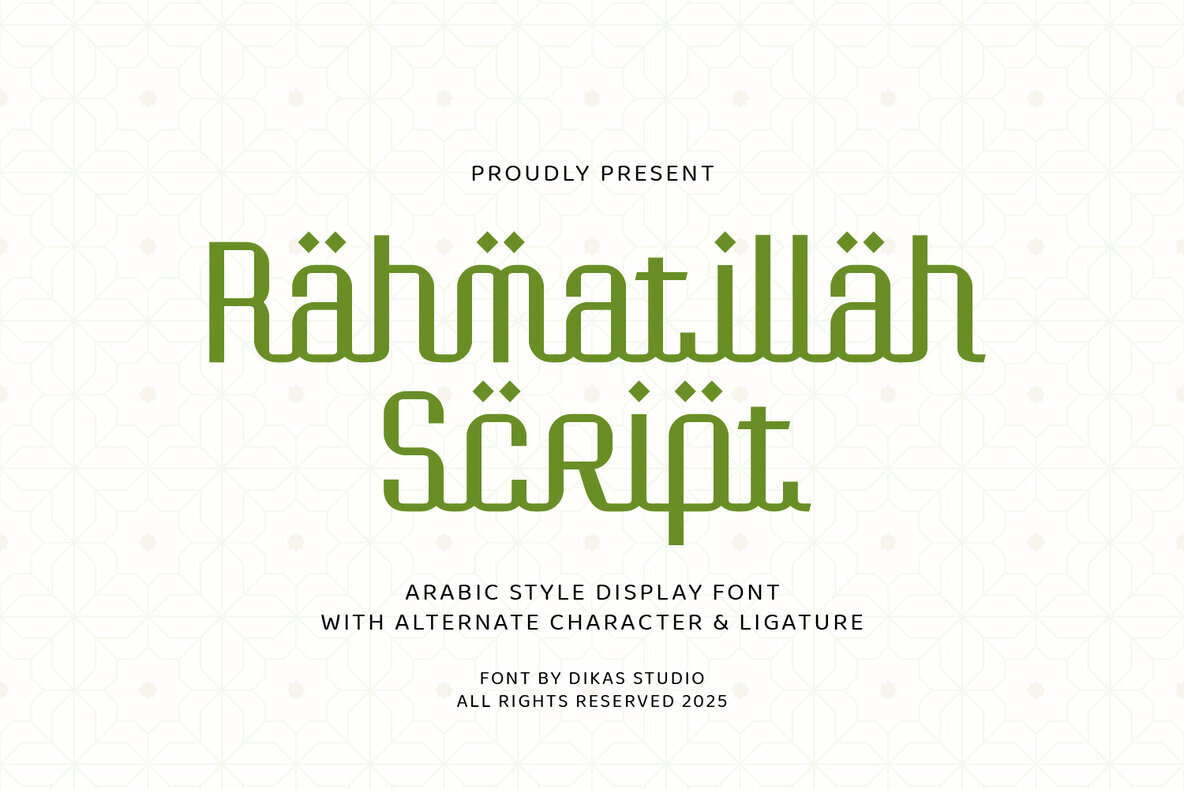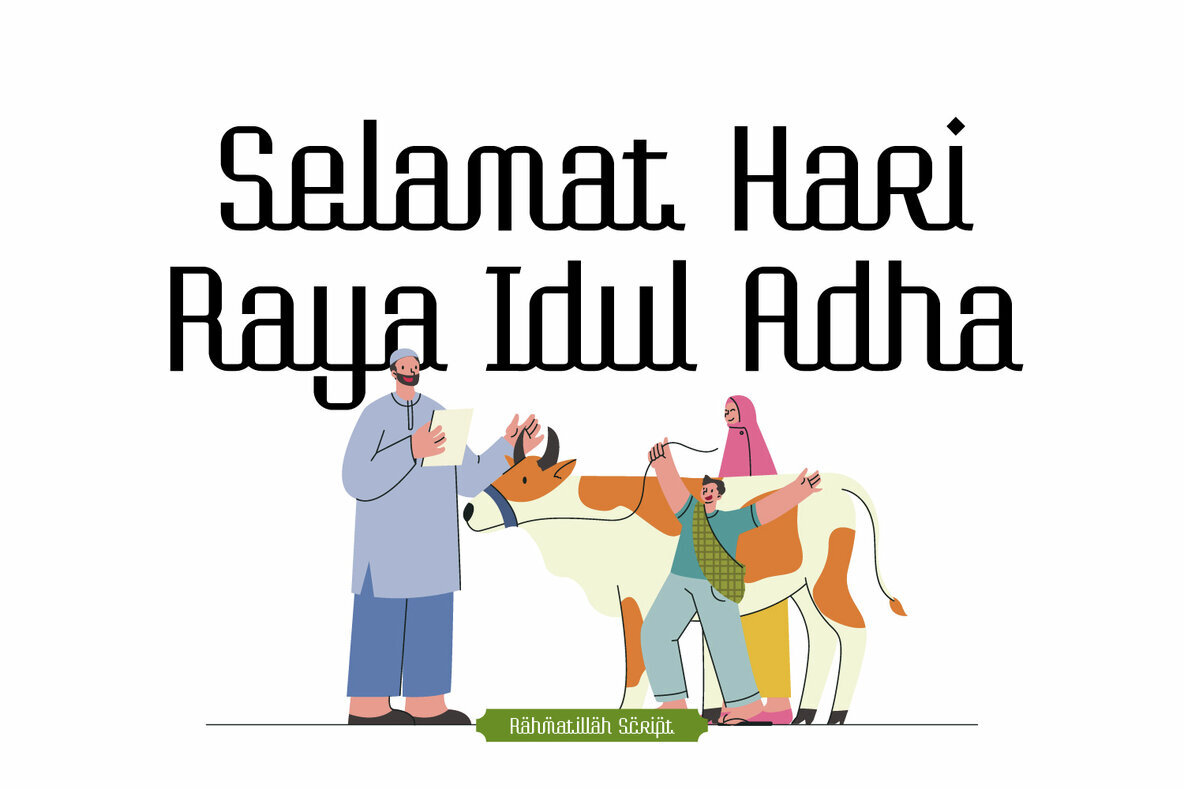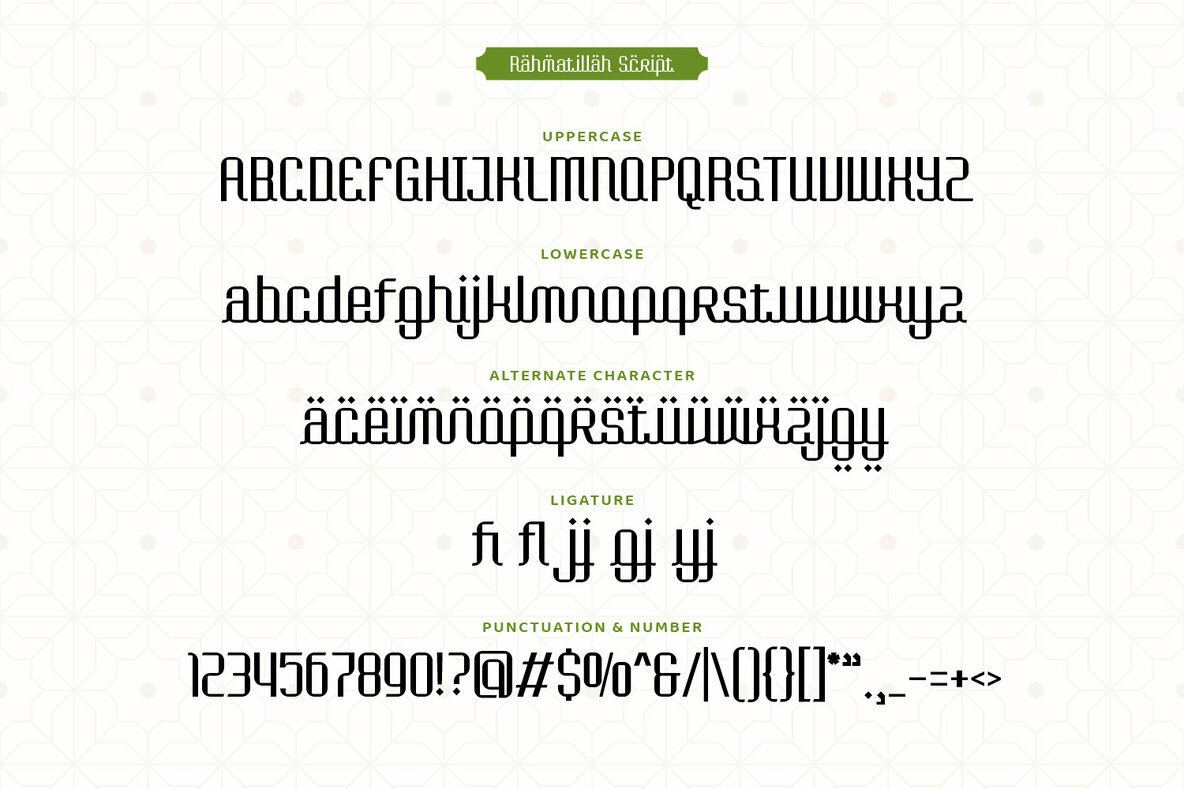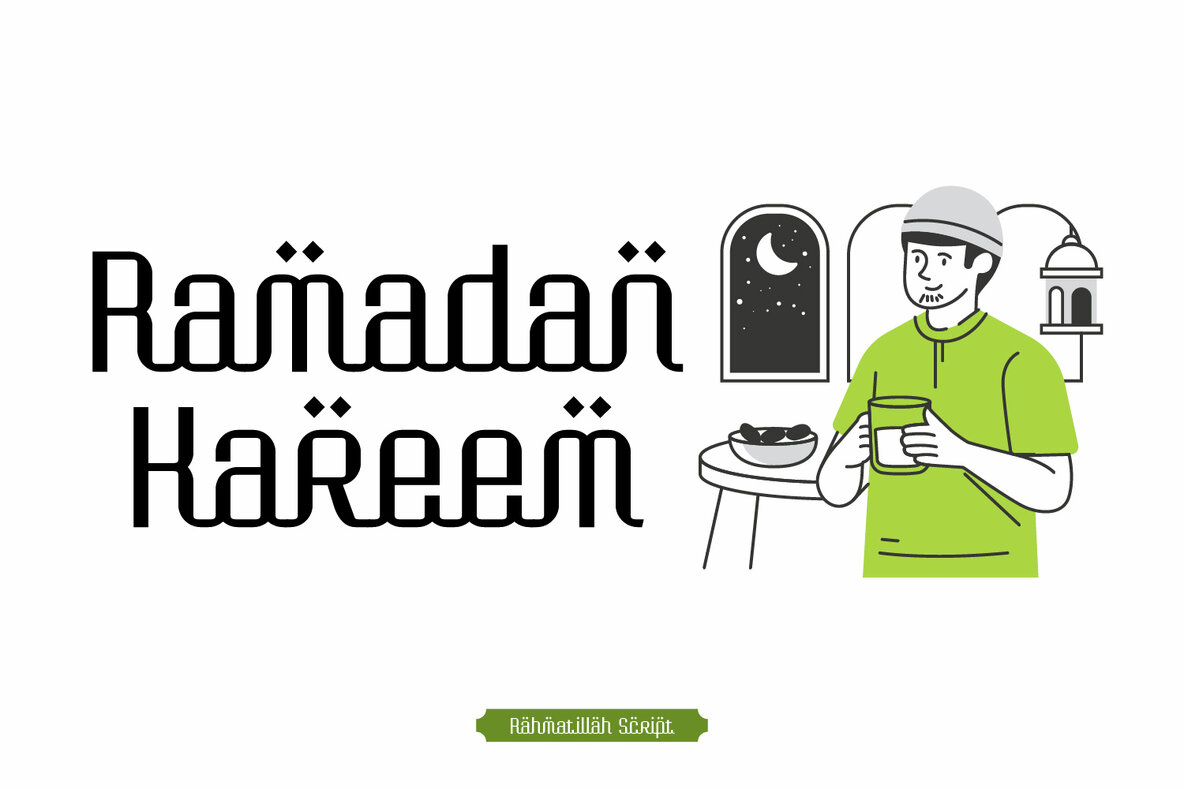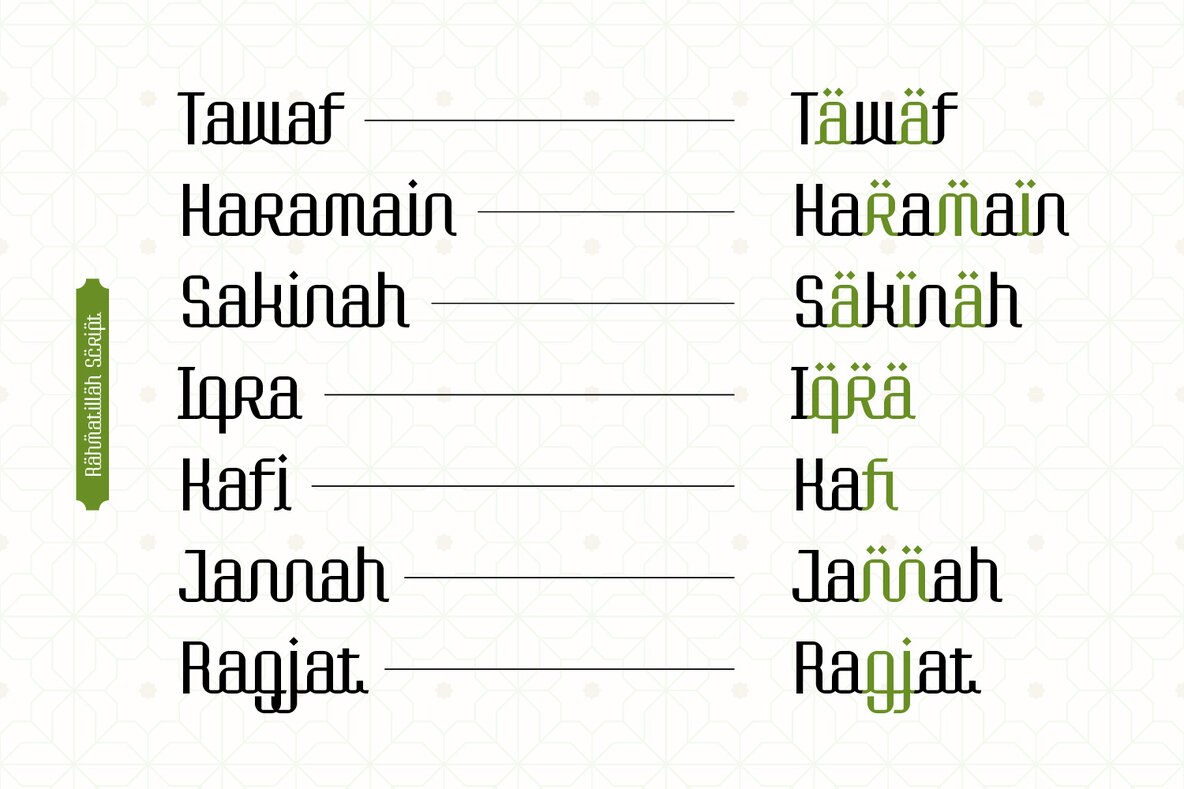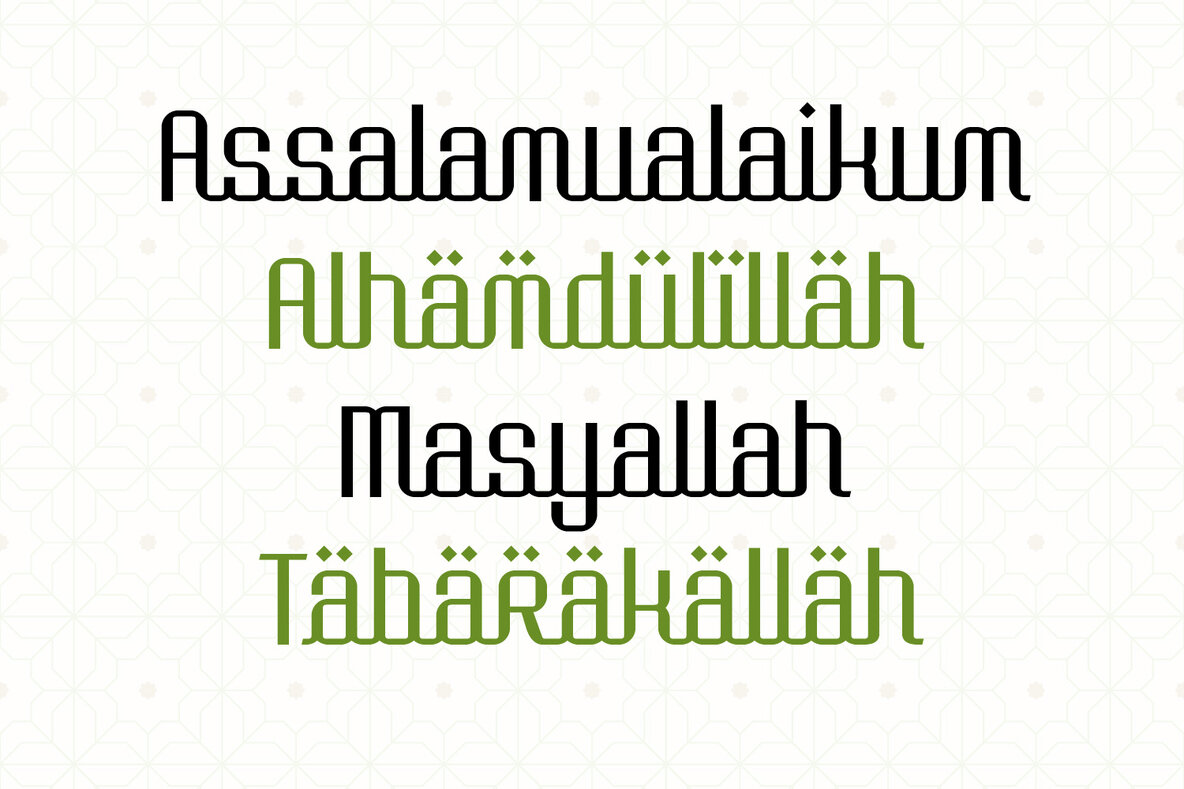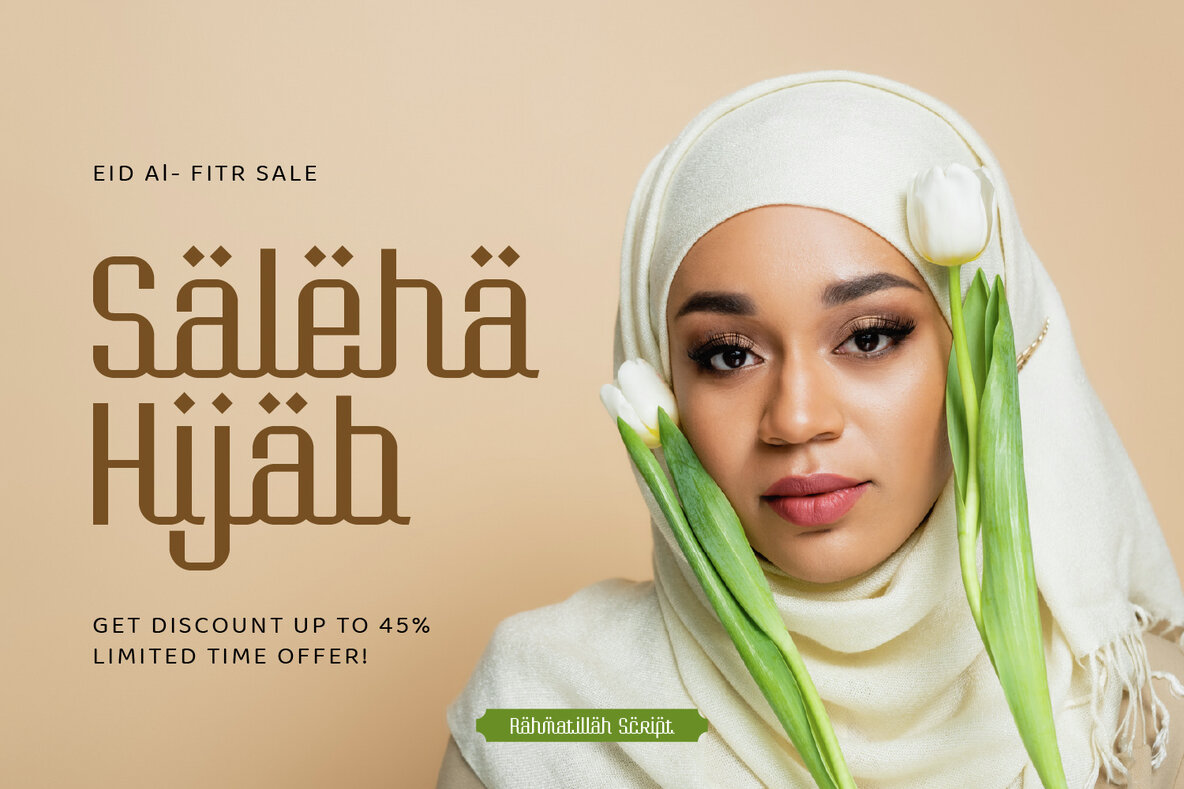
Rahmatillah Script Font
Rahmatillah Script Regular
Rahmatillah Script is a refined and elegant Islamic font that blends Arabic calligraphy style with a modern, minimalist script. With its thin, rigid strokes and clean structure, this typeface is perfect for capturing both spiritual and visual harmony in your design. This Islamic font is ideal for projects related to Ramadan, Islamic events, Arabic-themed branding, or religious invitations. Its structured flow and aesthetic clarity make it suitable for quotes, packaging, logos, and social media graphics that require a touch of cultural elegance. Whether for print or digital use, Rahmatillah Script is an Islamic font that combines beauty, faith, and design in perfect balance.